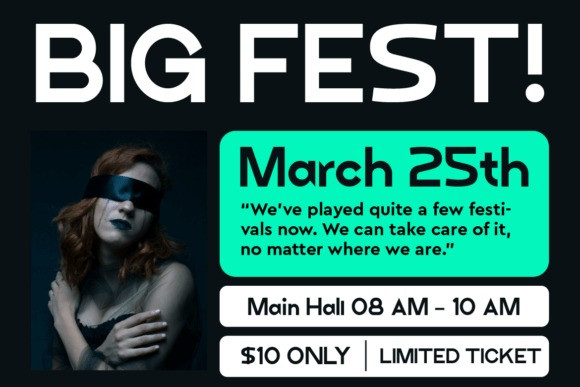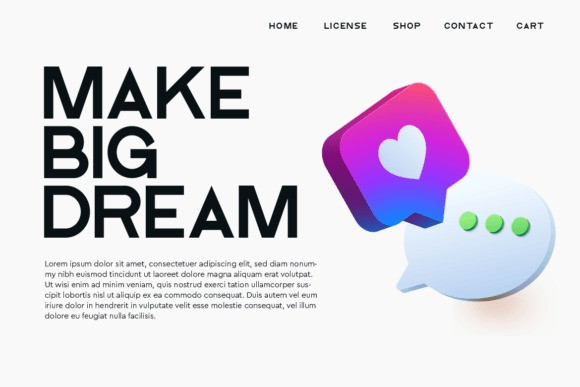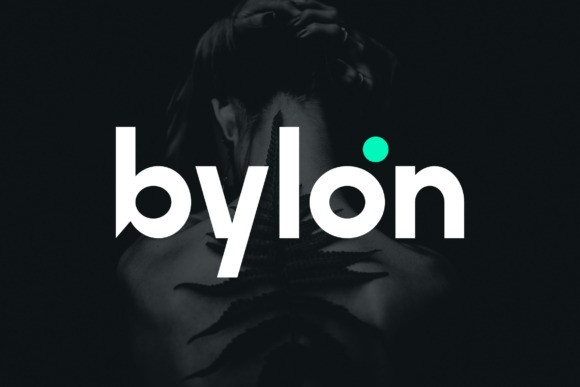
Bylon Font
Bylon Font is a sleek sans serif logo font designed by Iwan Alwan, crafted for modern branding and minimalistic identities. Its clean, balanced letterforms give Bylon a professional and contemporary look, making it perfect for logos, business cards, and digital platforms. With multilingual support, ligatures, and alternates, Bylon offers versatility while ensuring a crisp, refined aesthetic that stands out in any design project.
This fonts are great for product logo,wedding card logo, clothing brand logo, Vintage design and much more.